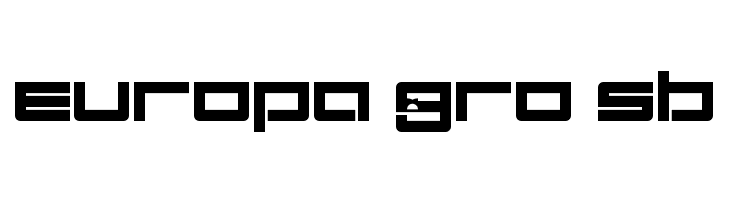
A modern, bold sans-serif font with geometric shapes and uniform stroke width.
A futuristic, geometric font with blocky, angular letterforms.
A futuristic, geometric font with bold, angular lines and a modern aesthetic.